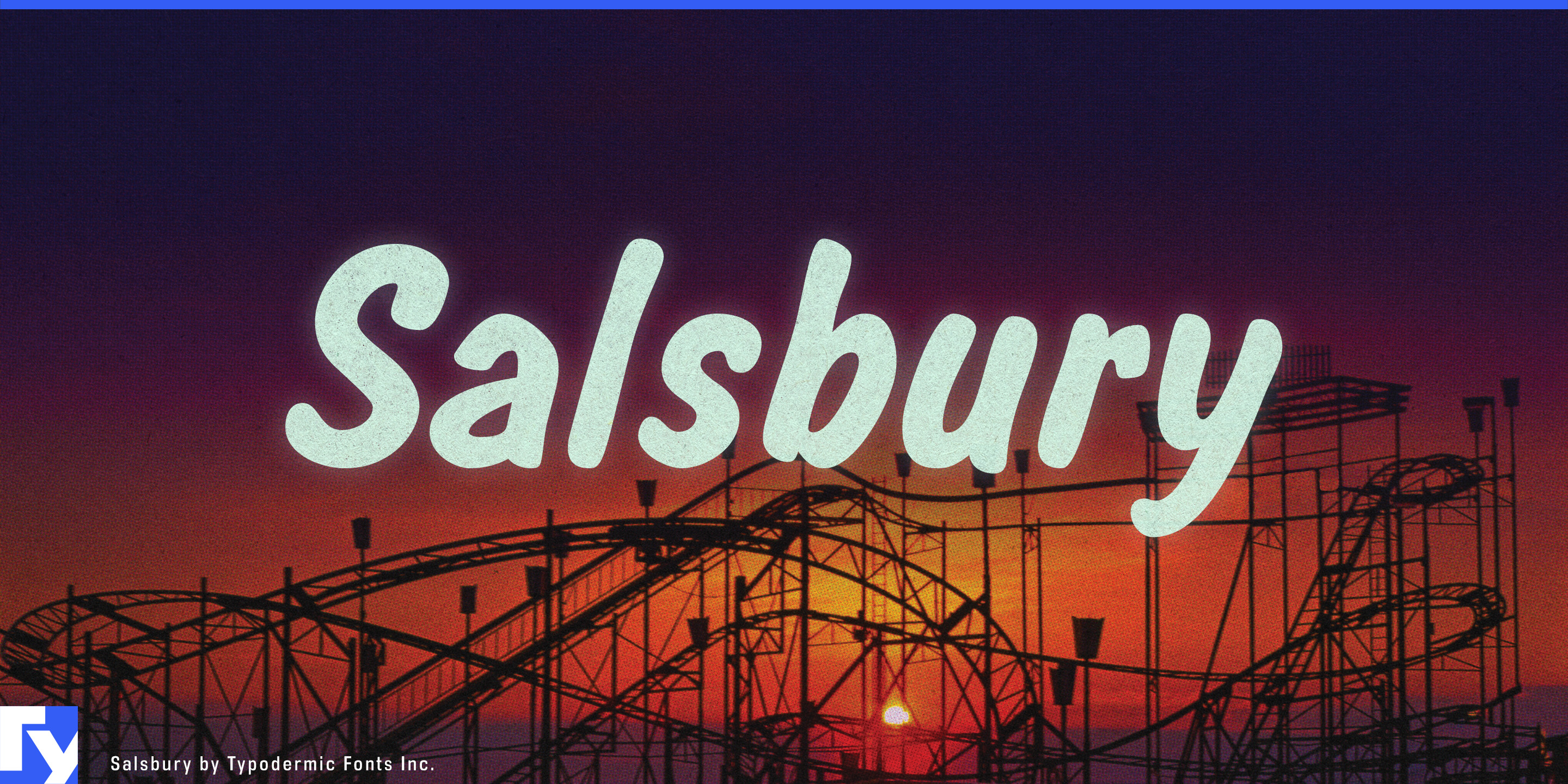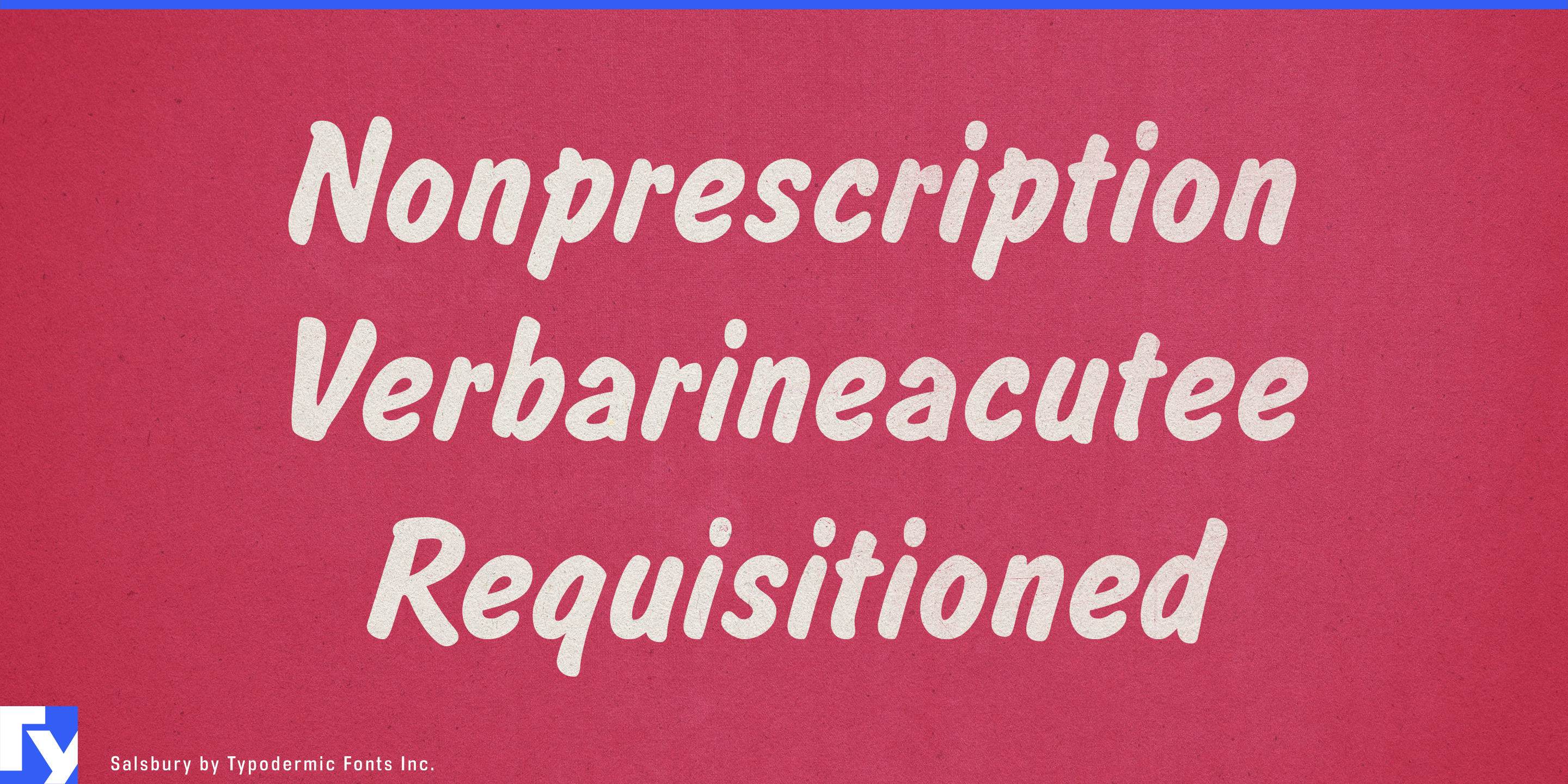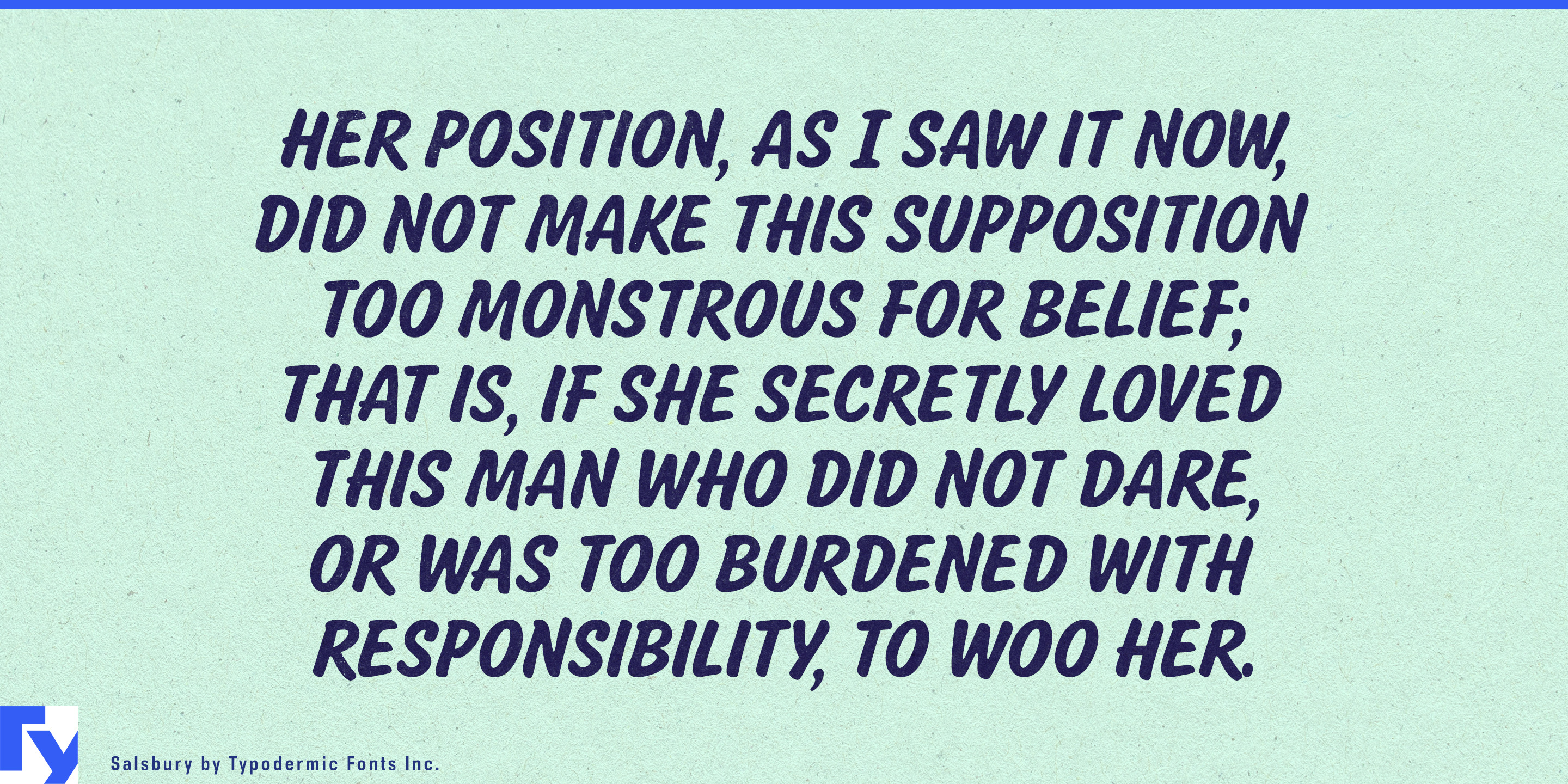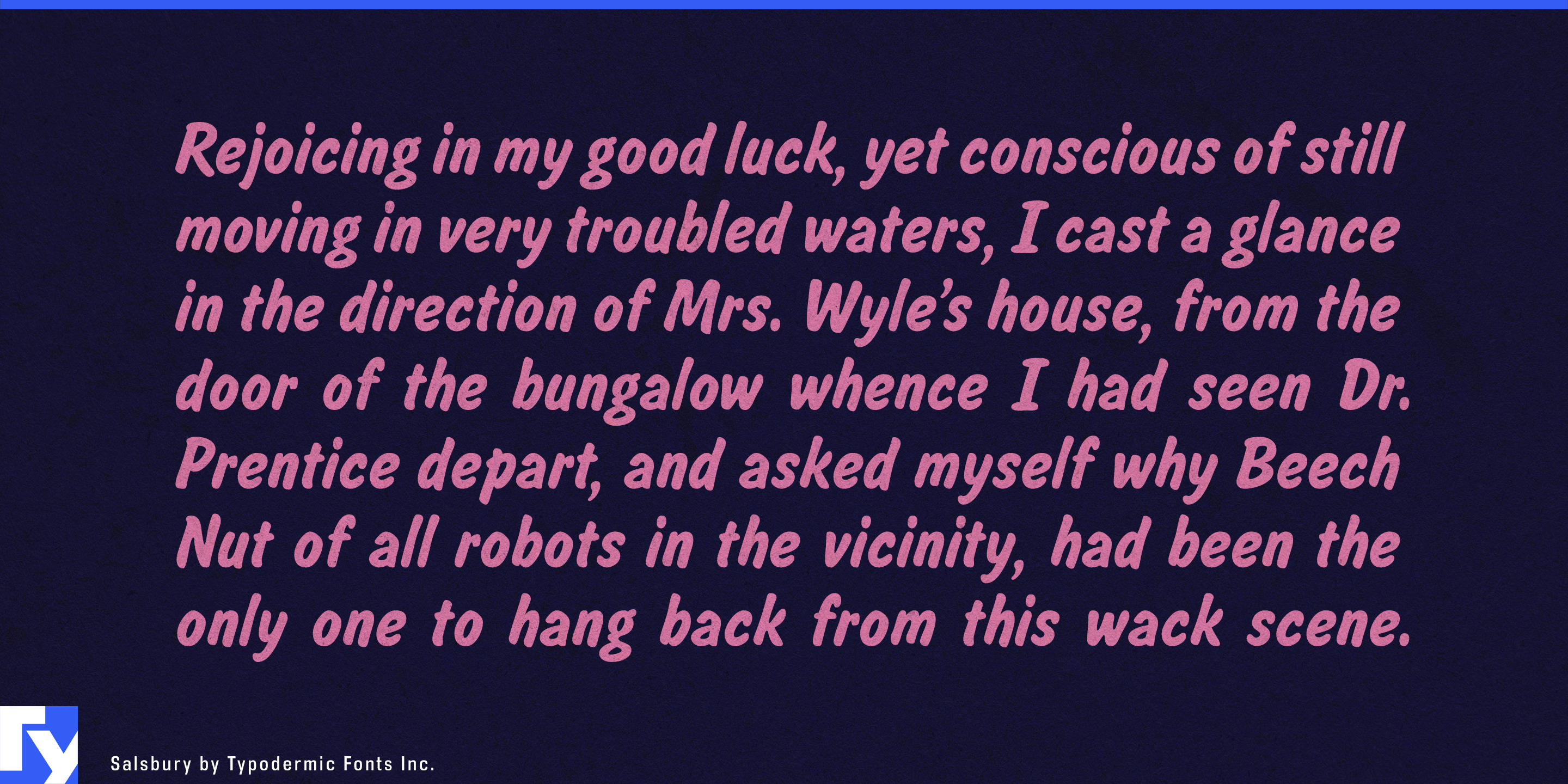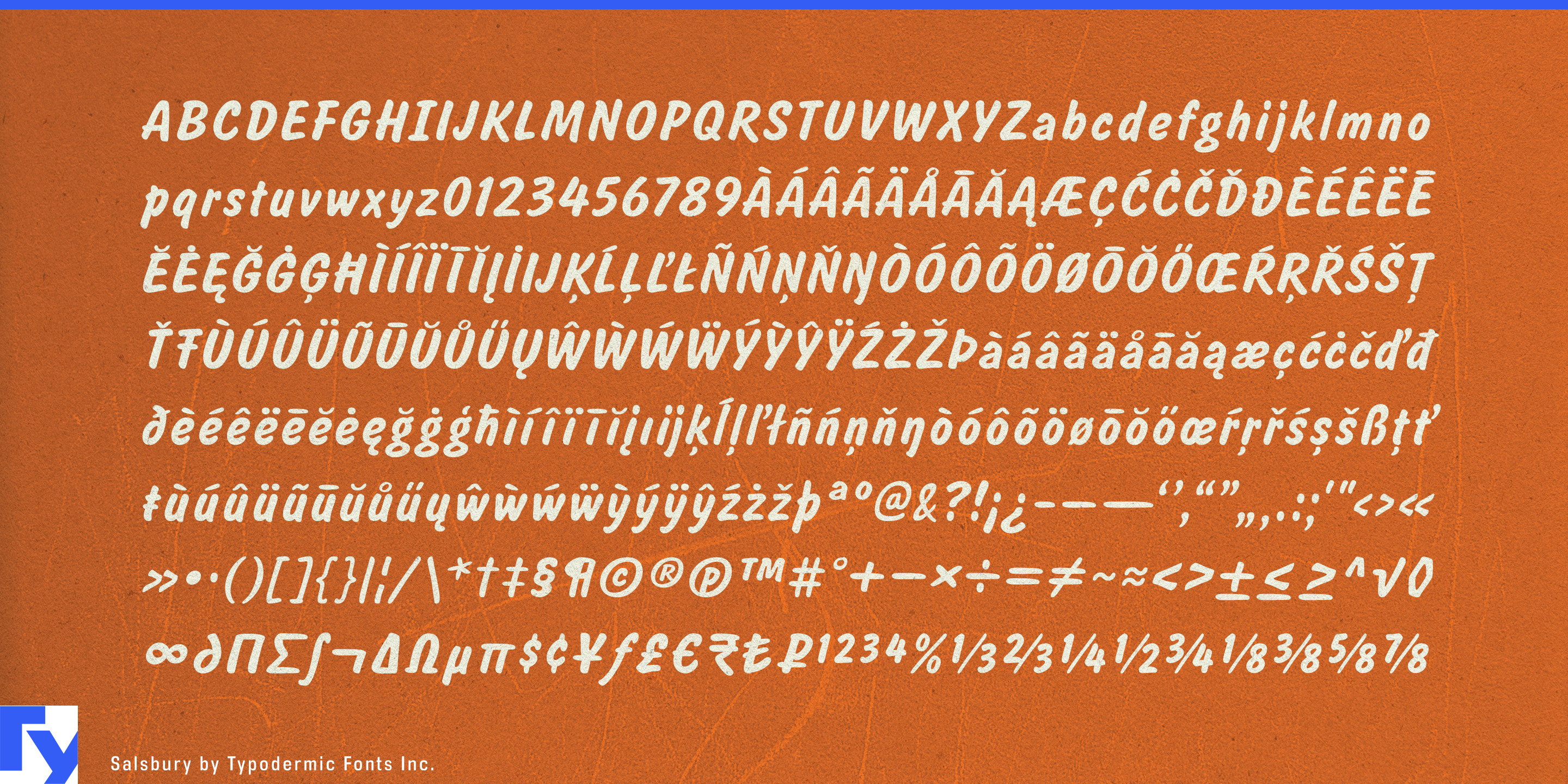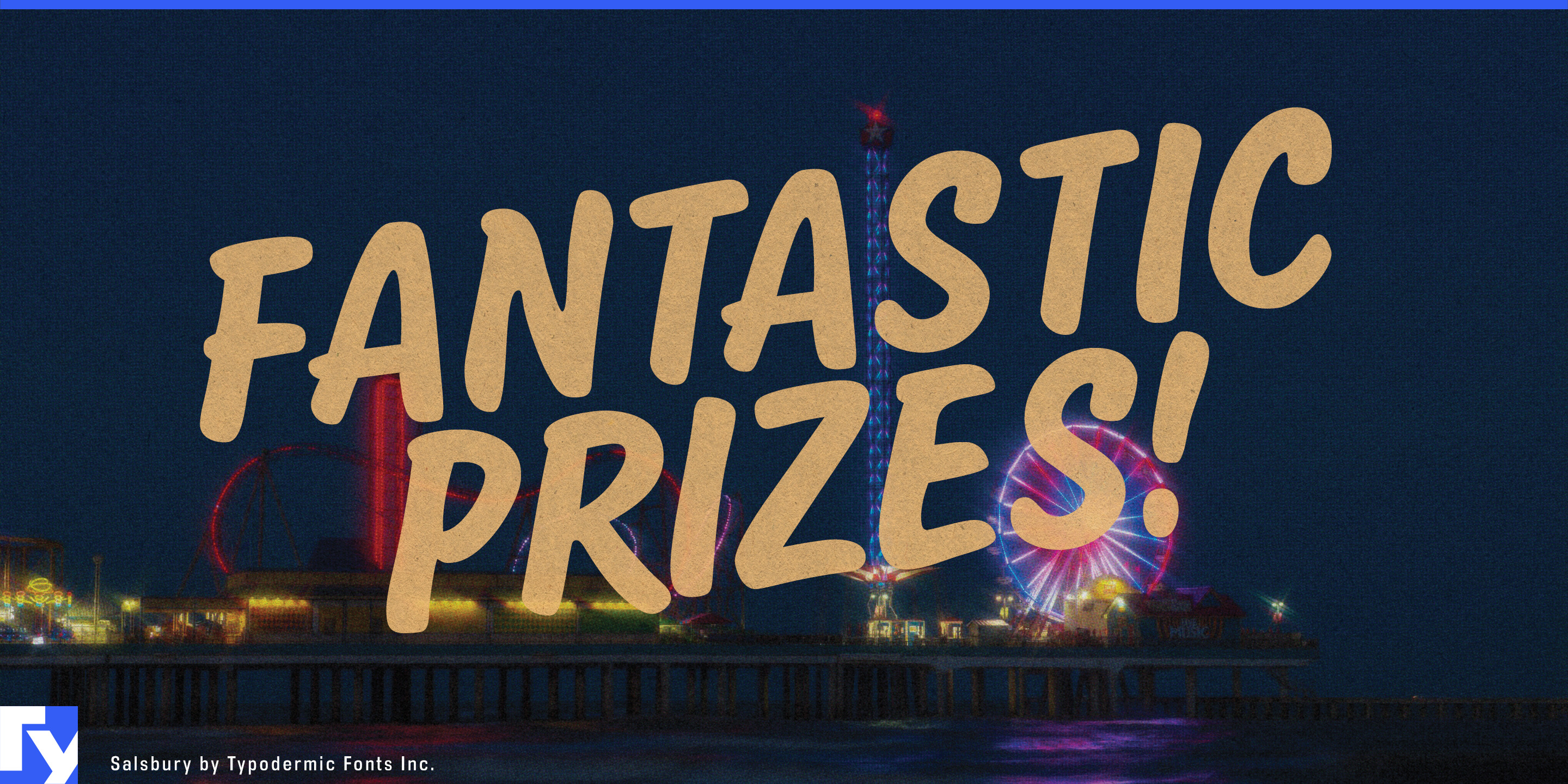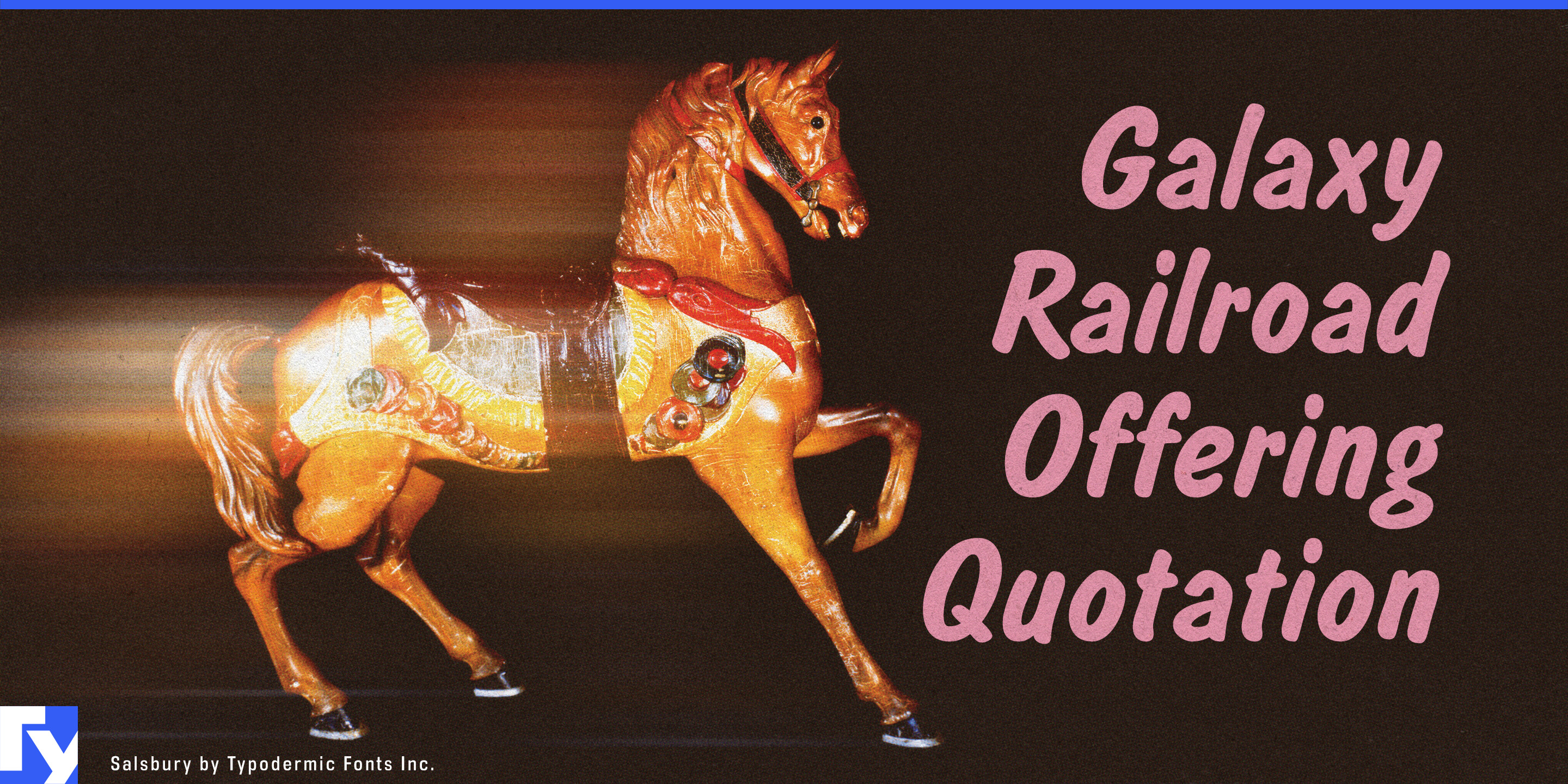
Salsbury
Salsbury is for businesses that need today’s special to look like somebody actually wrote it today.
Large food-service and retail operations increasingly manage promotions across digital menu boards, drive-thrus, counter screens, apps and social campaigns. That makes changing an offer easy, but it can also make the permanent menu and the temporary special look equally systematic. Real hand lettering immediately signals something seasonal, limited or freshly introduced; commissioning new lettering for every launch does not scale.
Salsbury provides that changing hand-painted layer in a repeatable form. Its brush-like construction is simplified and direct, without the fine connections or elaborate flourishes that can make scripts fussy when viewed quickly or from several meters away. A clean sans can handle prices, ingredients and navigation; Salsbury takes the product name or promotional phrase that deserves the interruption.
Quick-service and fast-casual restaurants can use it for limited-time burgers, chicken sandwiches, pizzas, sauces, regional specials and collaborations across drive-thru panels, counter screens, window graphics and social campaigns.
Ice cream, frozen custard, shake and dessert chains are an especially natural fit. Flavor names, sundaes, monthly specials and holiday collections need to feel new again and again throughout the year. Salsbury can make each one feel closer to a freshly painted counter special than another database entry, carrying the same voice across menu screens, cups, counter cards and promotional graphics.
Coffee, tea, smoothie and beverage chains can use it for seasonal drinks and collaboration launches. Supermarket bakeries, delis and prepared-food departments can apply it to fresh-batch notices, featured meals and weekend specials. Convenience stores can use the same approach for short-run food and drink launches.
Theme parks, stadiums, arenas and cinemas extend the idea into concession systems. A Halloween sundae, playoff hot dog, movie-tied popcorn flavor or seasonal frozen drink can stand apart from the permanent menu without requiring a new typographic system every time.
Salsbury is not the typography that runs the menu. It is the scalable hand-painted voice for the flavor, special or limited-time offer that needs to feel as though it arrived this morning.